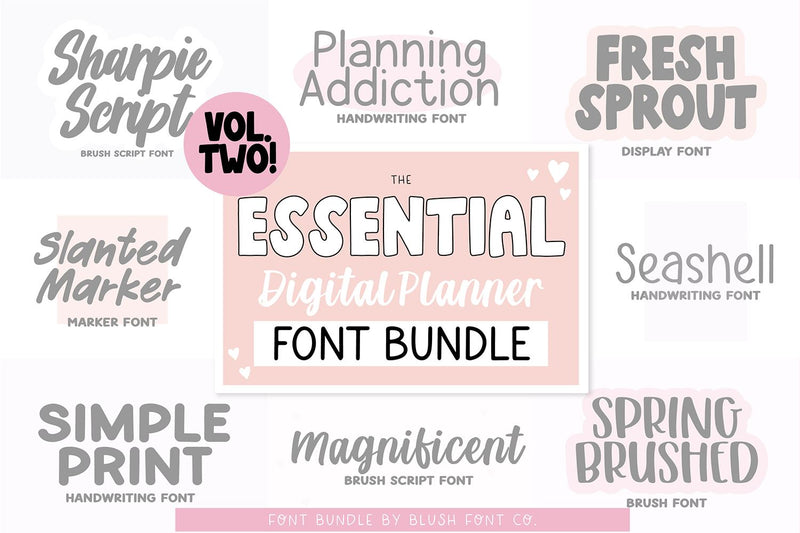
The Essential Digital Planner Font Bundle Vol. 2
The ESSENTIAL Digital Planner Handwriting Font Bundle. 8 cute and clean handwritten fonts made for Goodnotes and digital planners.
Fonts included: SEASHELL
SLANTED MARKER
SHARPIE SCRIPT
SIMPLE PRINT
MAGNIFICENT
SPRING BRUSHED
FRESH SPROUT
PLANNING ADDICTION